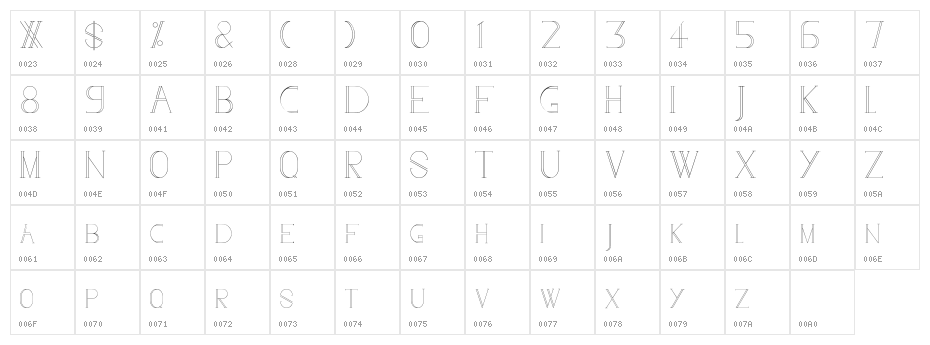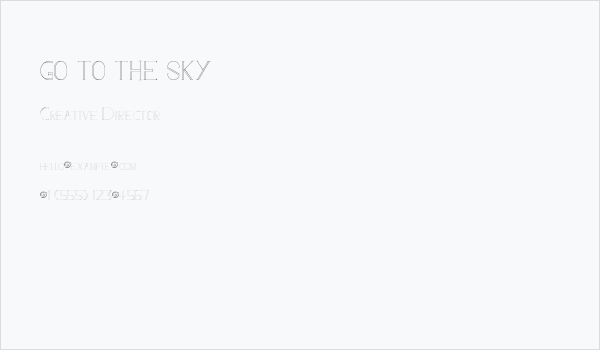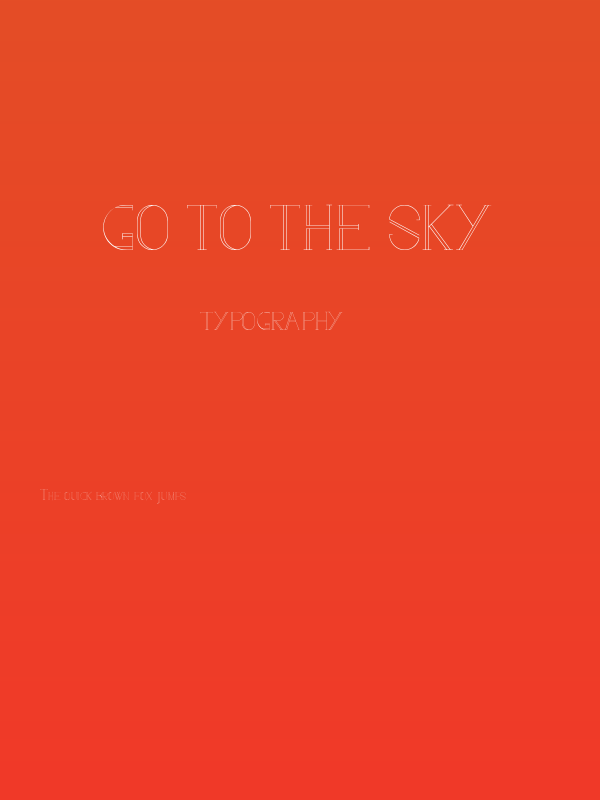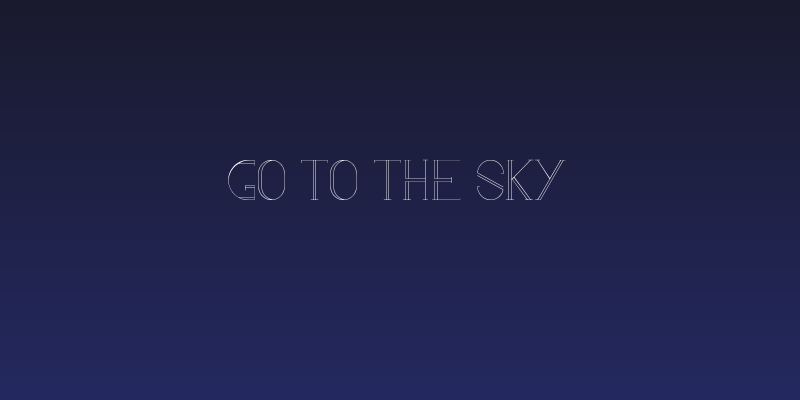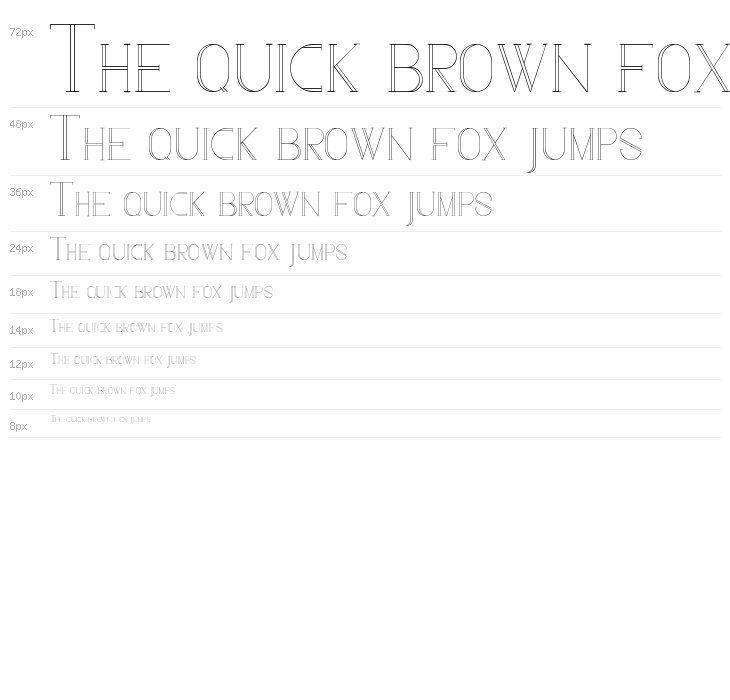
go to the sky Font
go to the sky Description
This font features a modern and geometric design with clean, straight lines and sharp angles. The characters are constructed with a consistent stroke width, giving it a uniform appearance. The uppercase letters are tall and narrow, while the lowercase letters maintain a similar style, creating a cohesive look. The numerals and special characters follow the same geometric pattern, enhancing the overall aesthetic. This font is ideal for projects that require a contemporary and sophisticated touch, such as branding, advertising, and editorial design.
| Proposed Projects | Ideal for branding, advertising, editorial design, and modern web design. |